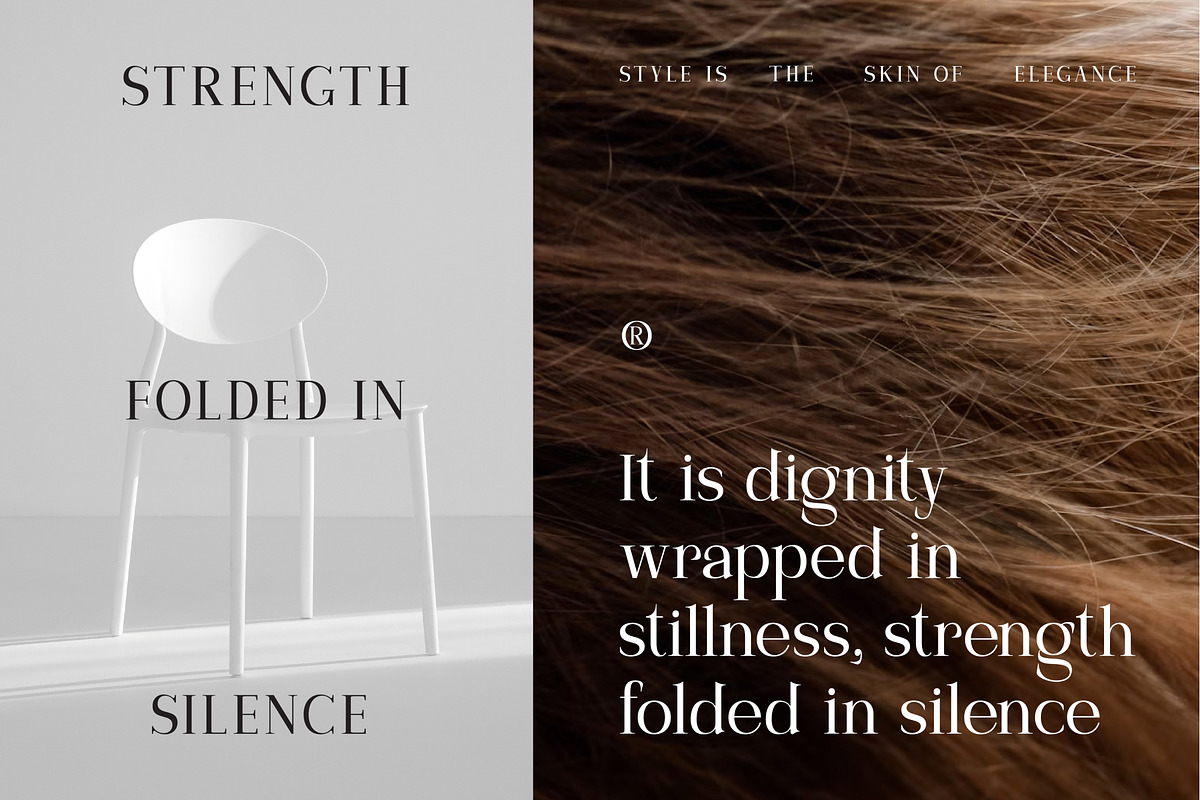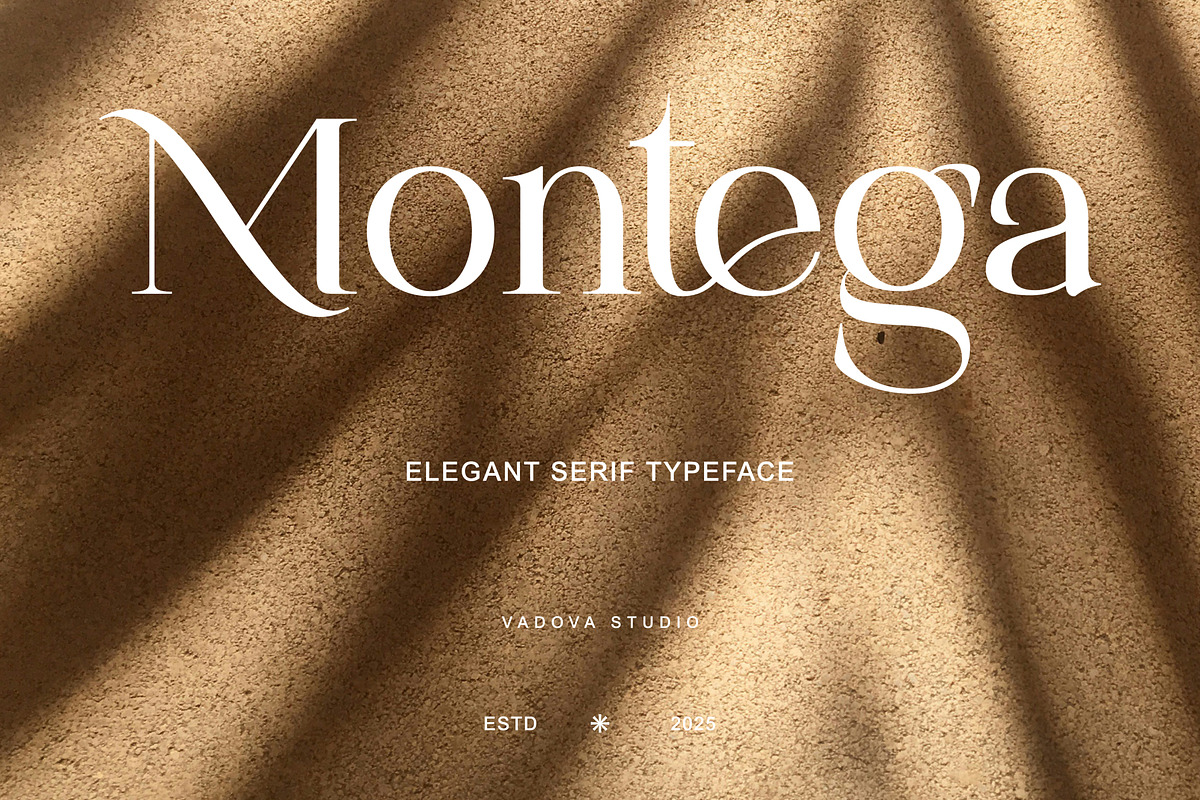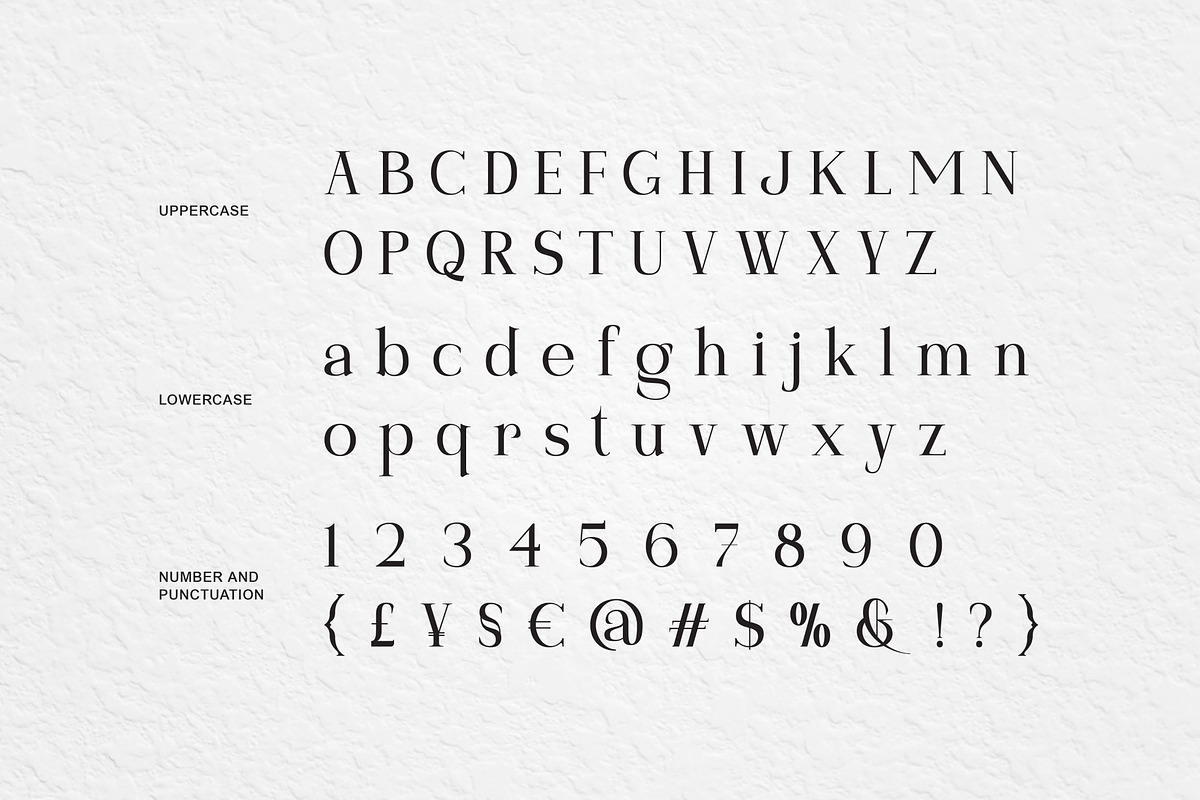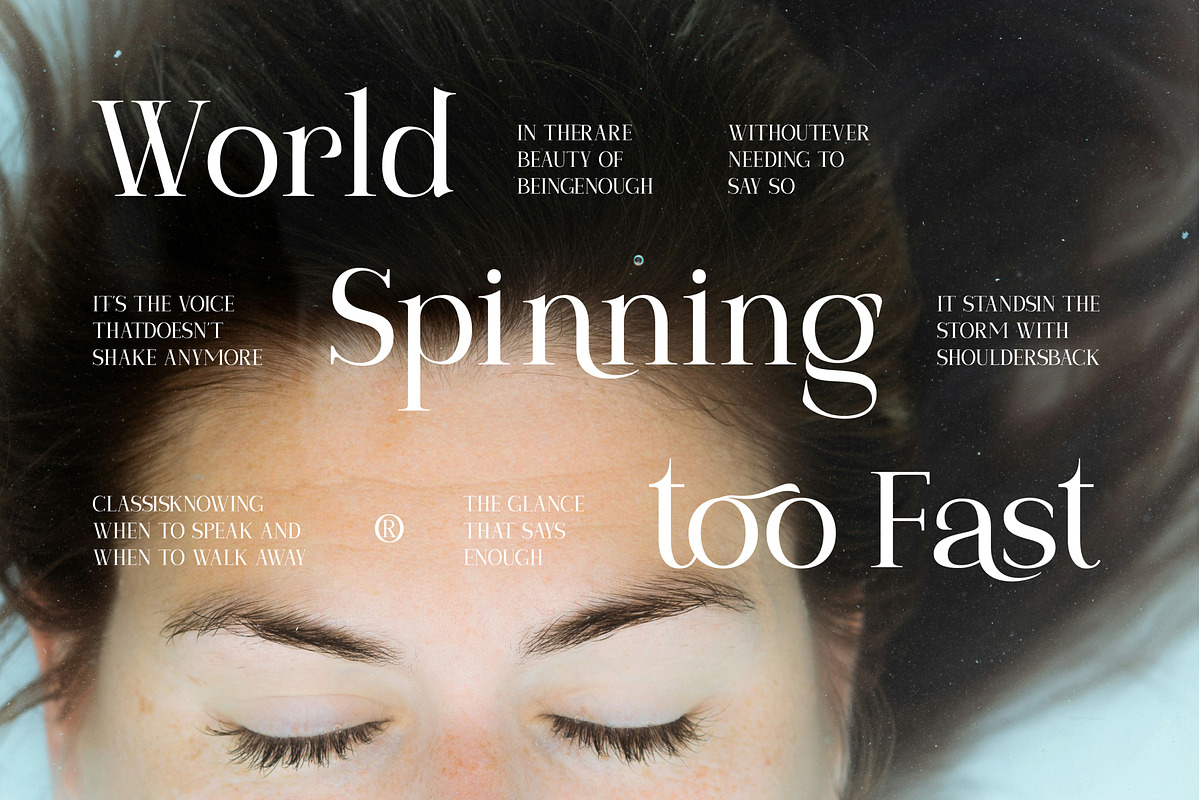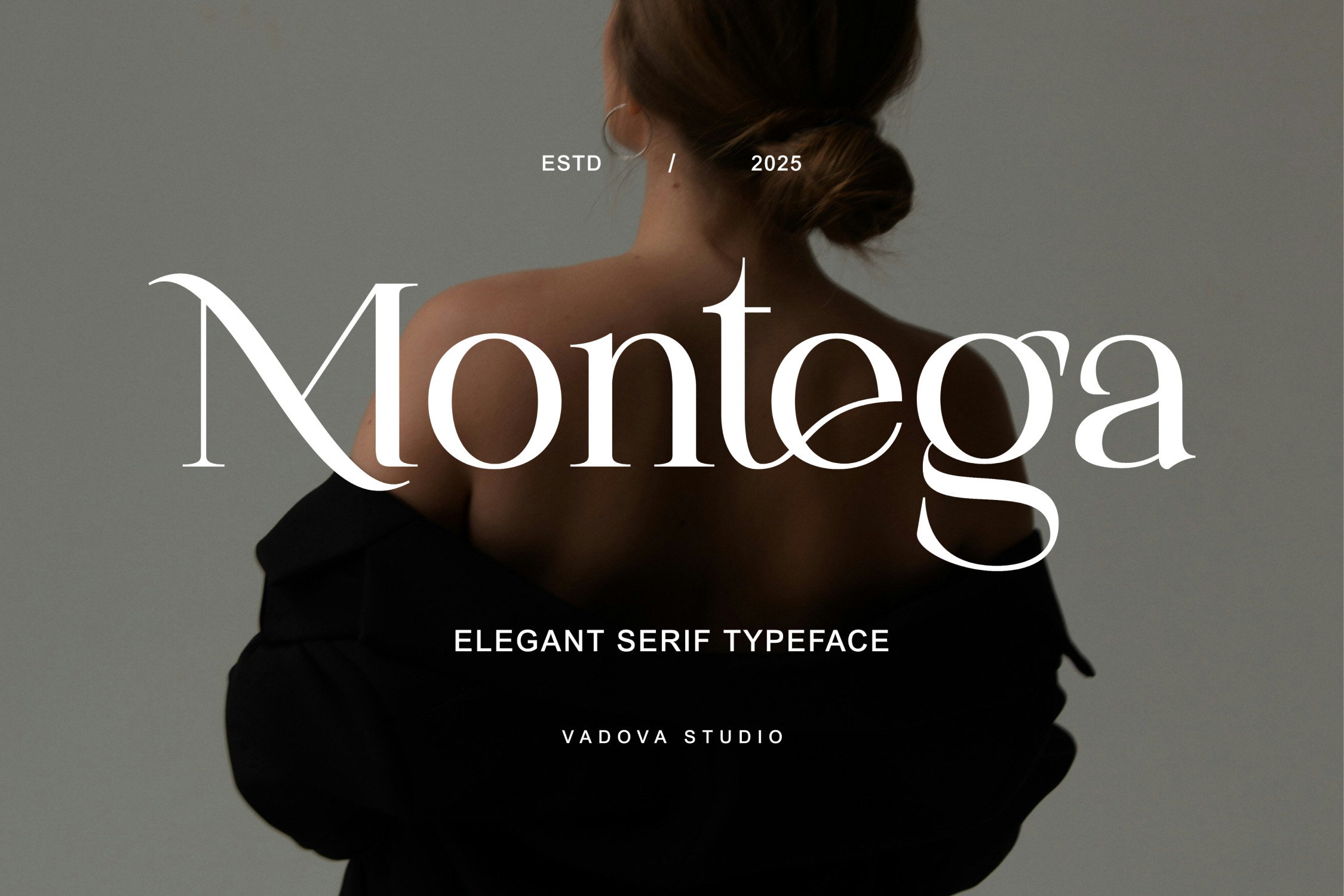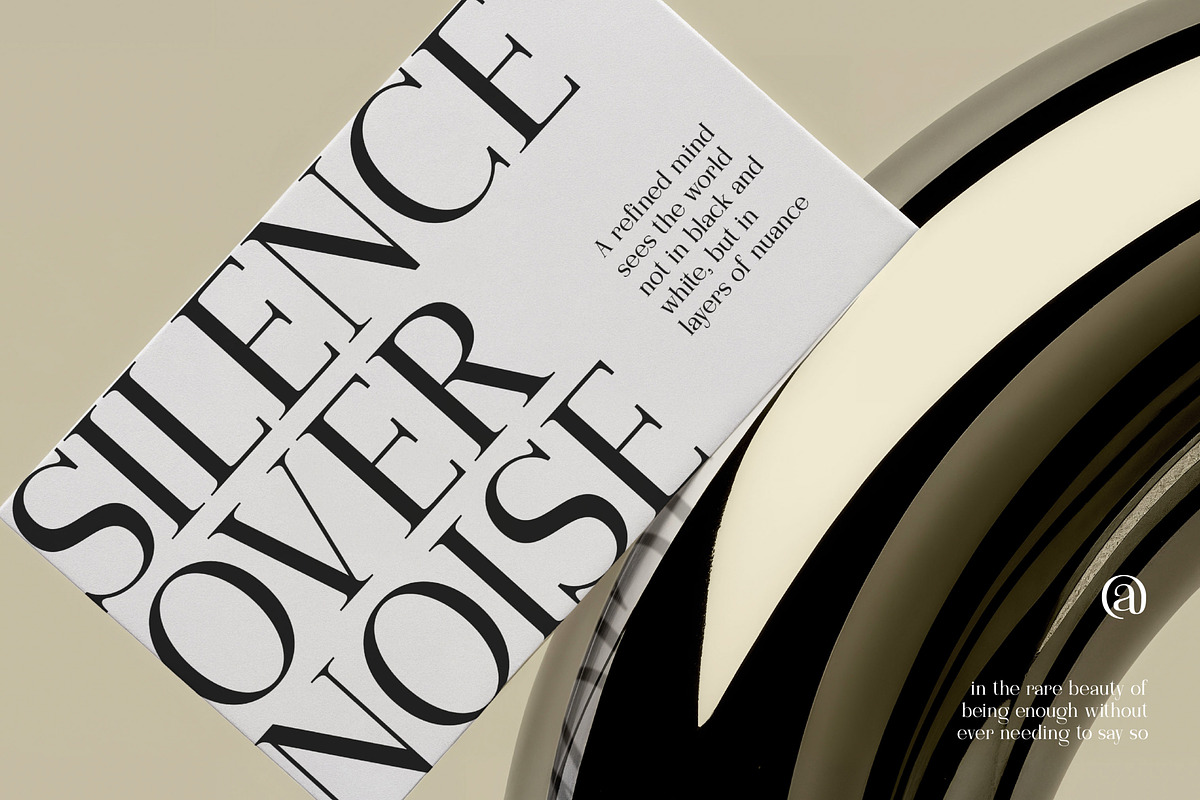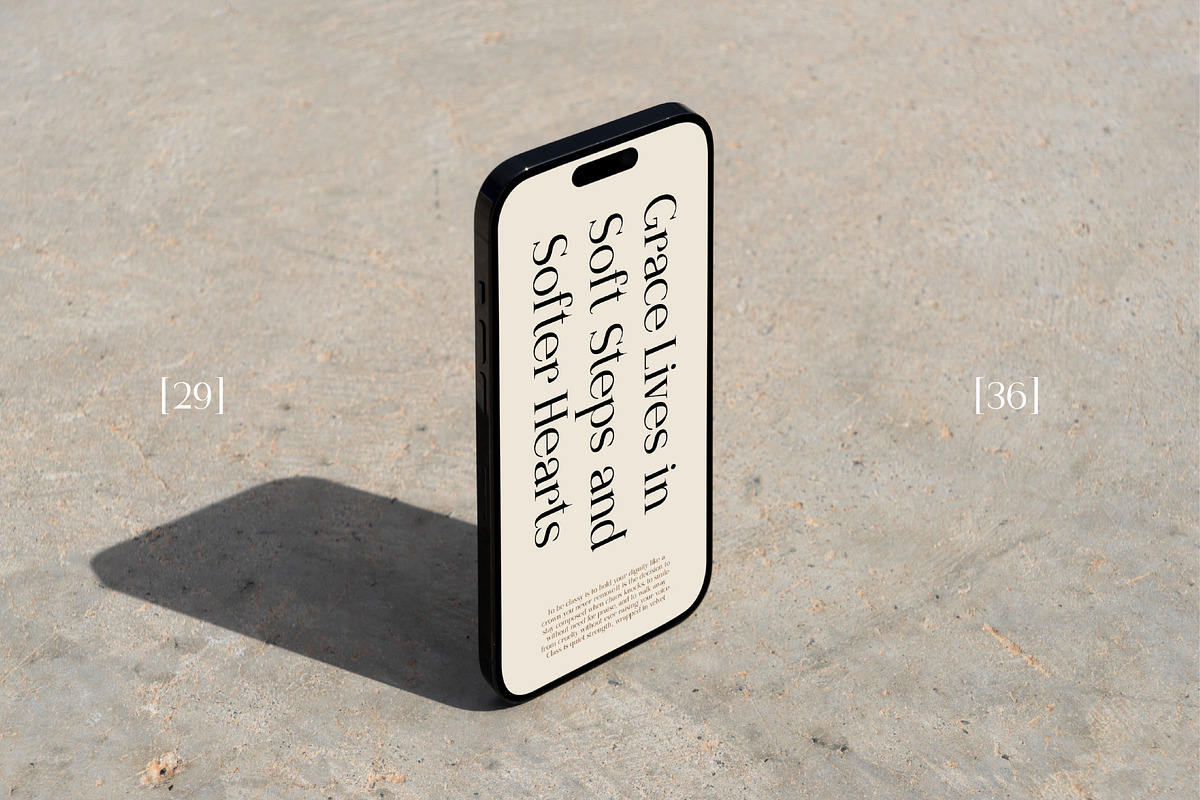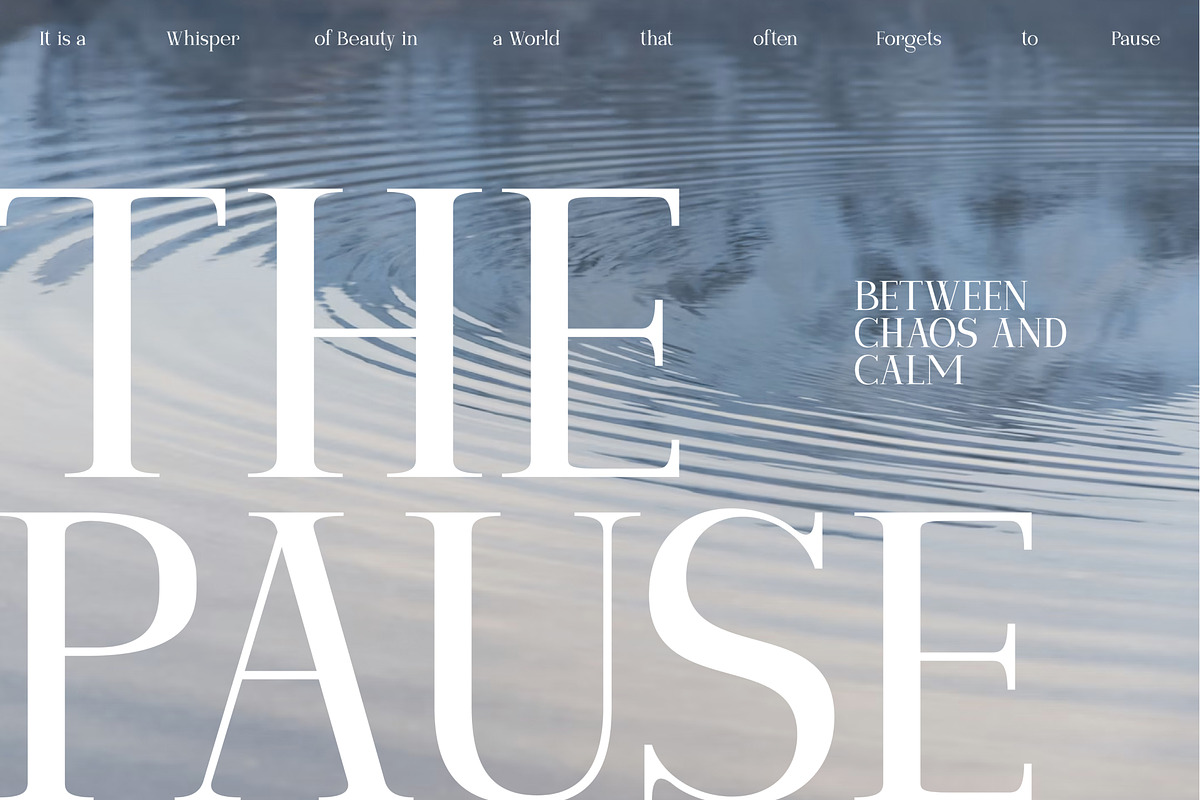
Montega Elegant Serif Typeface Font
Montega is an elegant serif typeface crafted for designers who value sophistication and modern refinement. Featuring sharp serifs, high contrast strokes, and a gracefully balanced letterform, Montega captures a premium look suited for upscale branding and high-end editorial design. This font includes full uppercase and lowercase alphabets, numerals, and a wide range of punctuation and currency symbols for global usability.
Montega is particularly relevant for designers working in fashion, beauty, luxury goods, and upscale branding industries. Its refined, high-contrast style evokes trust, elegance, and exclusivity making it a go-to choice for premium packaging, designer lookbooks, classy editorial layouts, and minimalist branding. Whether you're creating for personal stationery, brand identity, or promotional materials.
- Elegant high-contrast serif with refined transitional style
- Sharp bracketed serifs and slender stems for a luxurious feel
- Graceful curves and sculpted terminals add visual charm
- Balanced proportions for versatile use in headlines and branding
- Distinctive uppercase with flowing lowercase for strong readability
- Luxury brand identity systems needing a sophisticated, timeless serif
- High-end editorial design such as fashion magazines, portfolios
- Wedding invitations, event stationery, and upscale personal branding
- Elegant product packaging, cosmetics labels, and boutique branding
- Social media graphics and marketing kits that require a classic touch
Discover Montega where classic elegance meets modern design for effortlessly refined visuals